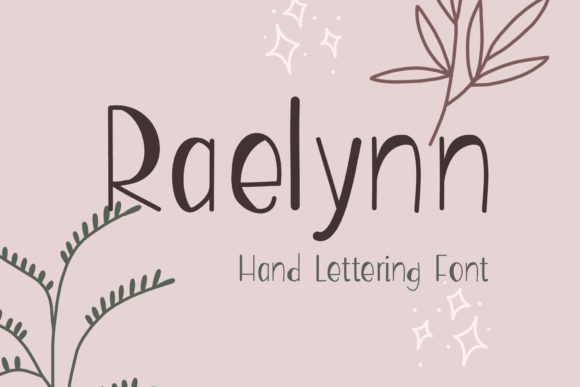
Introducing Raelynn Font, the enchanting script font that will captivate your designs and leave a lasting impact on your audience. With its graceful curves and effortless flow, Raelynn embodies the essence of handwritten beauty, evoking a sense of warmth and authenticity.
Crafted with meticulous care, Raelynn is not just a font; it's an invitation to express your creativity and make a statement. Its versatility shines through in countless applications, from Cricut projects and logos to branding, social media posts, and wedding invitations.
Immerse yourself in the charm of Raelynn and let your imagination soar. Its natural feel adds a touch of elegance to any design, while its readability ensures your message is conveyed with clarity and impact.
Whether you're a seasoned designer or just starting your creative journey, Raelynn Font empowers you to elevate your creations with a unique and captivating touch. Its whimsical spirit will ignite your passion for design and help you craft unforgettable experiences.
Step into the world of Raelynn Font and discover the limitless possibilities it holds. Embrace its allure and watch your designs bloom with a fresh and captivating style.